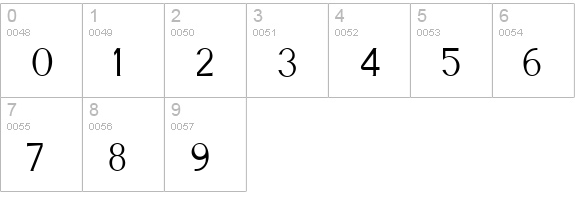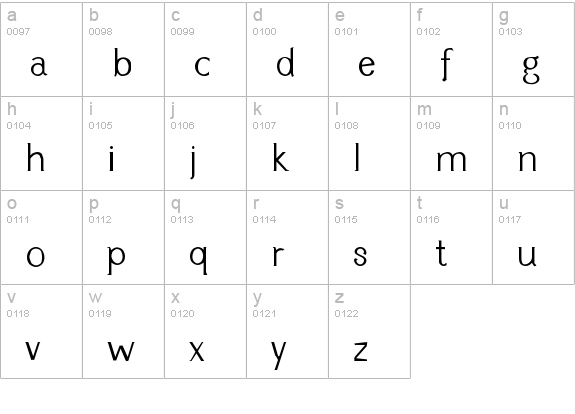
Cyn Regular Font Details
Cyn Regular is the standard, neutral variant in the Cyn typeface family \xE2\x80\x94 well suited to general body text, paragraphs, and standard typographic work.
Cyn Regular font is a stunning typeface that exudes elegance and sophistication. With its clean lines and perfectly balanced proportions, it is a versatile font that can be used for a wide range of design projects. Whether you're creating a logo, designing a website, or crafting a beautifully formatted document, Cyn Regular font will add a touch of timeless beauty to your work. This font features a classic yet contemporary design, making it suitable for both modern and traditional aesthetics. Its sleek and streamlined letterforms are effortlessly legible, ensuring that your message is clear and easy to read. The attention to detail in each character is evident, as every curve and stroke is meticulously crafted to create a harmonious and visually pleasing composition. One of the most appealing aspects of Cyn Regular font is that it is available for free download at FontsMarket.com. This means that anyone can access and use this exceptional font without any cost. Whether you're a professional designer or simply someone who appreciates high-quality typography, Cyn Regular font offers an incredible opportunity to enhance your creative projects without breaking the bank. With its extensive character set and multiple language support, Cyn Regular font is a versatile tool that can be used in various contexts. From headlines and titles to body text and captions, this font adapts seamlessly to any typographic setting. Its timeless elegance and versatility make it a valuable addition to any designer's toolkit. In conclusion, Cyn Regular font is a beautiful and freely available typeface that combines classic design elements with a contemporary twist. Its clean lines, perfect proportions, and exceptional legibility make it a must-have for any design project. Whether you're a professional designer or a typography enthusiast, Cyn Regular font will undoubtedly elevate the visual appeal of your work. So don't miss out on this incredible opportunity to download and use this exceptional font at FontsMarket.com.